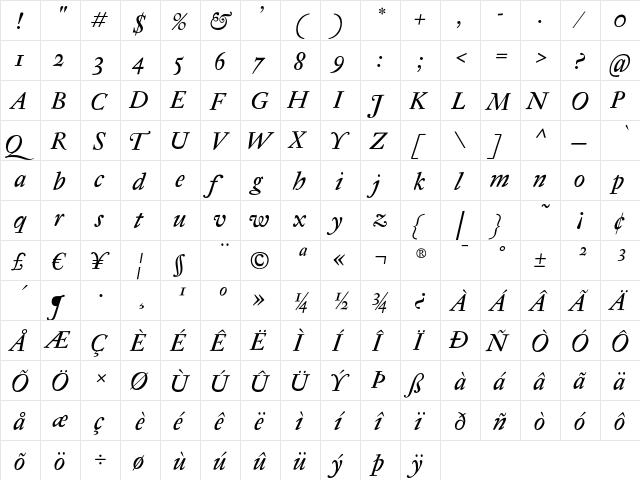
Antique Regent Italic
| Designer | Frantisek Storm |
Design Context for Antique Regent Typeface
Antique Regent wears its vintage influences proudly, with letterforms that recall mid-century signage, classic packaging, and nostalgia-driven design. Its italic angle brings a sense of urgency and motion to the letterforms.
Perfect for vintage-inspired branding, retro packaging, nostalgia campaigns, and period-accurate editorial design.
Font Pairing: Combine Antique Regent with a simple slab or neutral sans — period-accurate companions reinforce the vintage feel without competing for attention.
Pro Tip: Use Antique Regent for headlines and pull quotes rather than body copy — its personality is best appreciated in short, focused bursts.